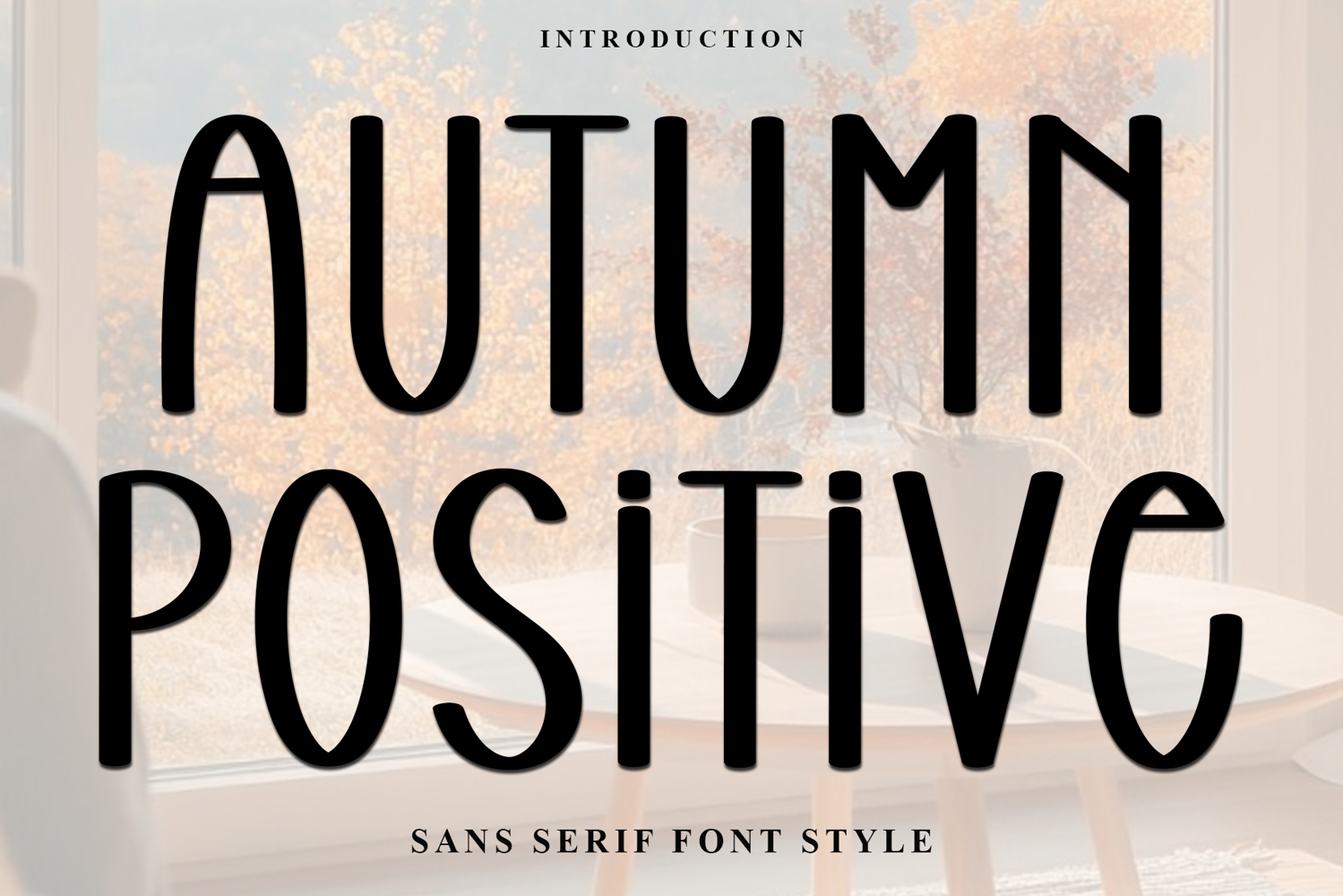
Autumn Positive
Autumn Positive is a beautiful and eye-catching font designed with a soft, unique touch. Its distinctive strokes give it a special character, making it meaningful and versatile for future use. With various characters, it’s perfect for design projects, crafts, and other creative works.